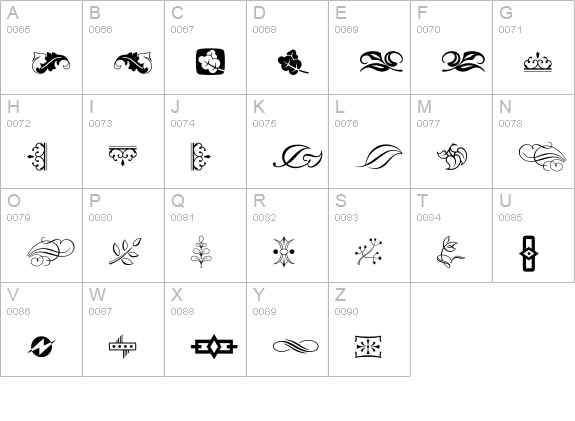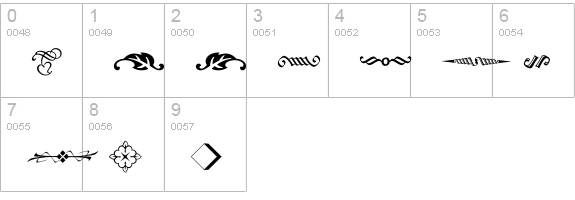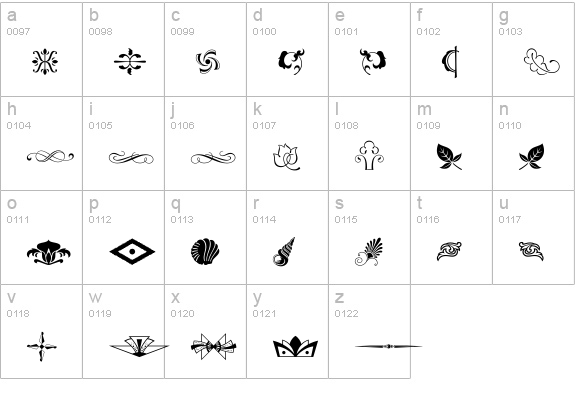
Type Embellishments Two Font Details
Type Embellishments Two is a stunning font that adds a touch of elegance and sophistication to any design. With its intricate and ornate details, this font is perfect for creating eye-catching headlines, logos, and invitations. Whether you're designing for a wedding, a formal event, or simply want to add a touch of luxury to your project, Type Embellishments Two is sure to impress. What sets Type Embellishments Two apart is not only its beautiful design, but also the fact that it is available for free. That's right, you can download this font without spending a dime! FontsMarket.com is proud to offer Type Embellishments Two as a freely available font, allowing designers and enthusiasts alike to access this extraordinary typeface and bring their visions to life. The versatility of Type Embellishments Two is truly remarkable. Its intricate swirls, delicate curls, and flowing lines can be used to create both bold and delicate designs. Whether you're looking to make a statement with a bold, uppercase headline or add a subtle touch of elegance to a lowercase script, this font has you covered. Not only does Type Embellishments Two offer a wide range of characters and glyphs, but it also comes in various weights and styles, allowing you to find the perfect fit for your project. From thin and delicate to bold and impactful, this font has it all. So why wait? Head over to FontsMarket.com and download Type Embellishments Two for free today. With its stunning design and limitless possibilities, this font is sure to become a staple in your font collection. Don't miss out on the opportunity to add a touch of elegance and sophistication to your designs with this extraordinary typeface.